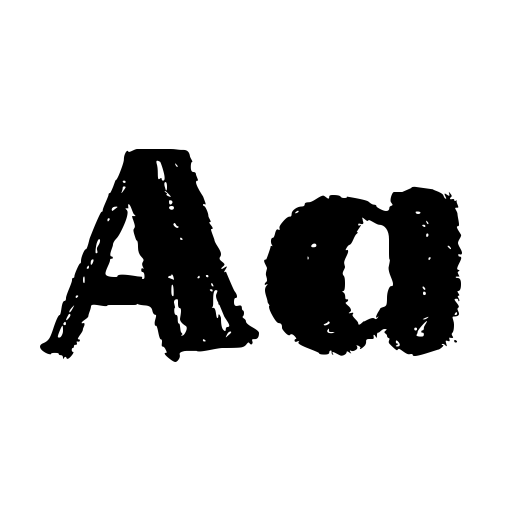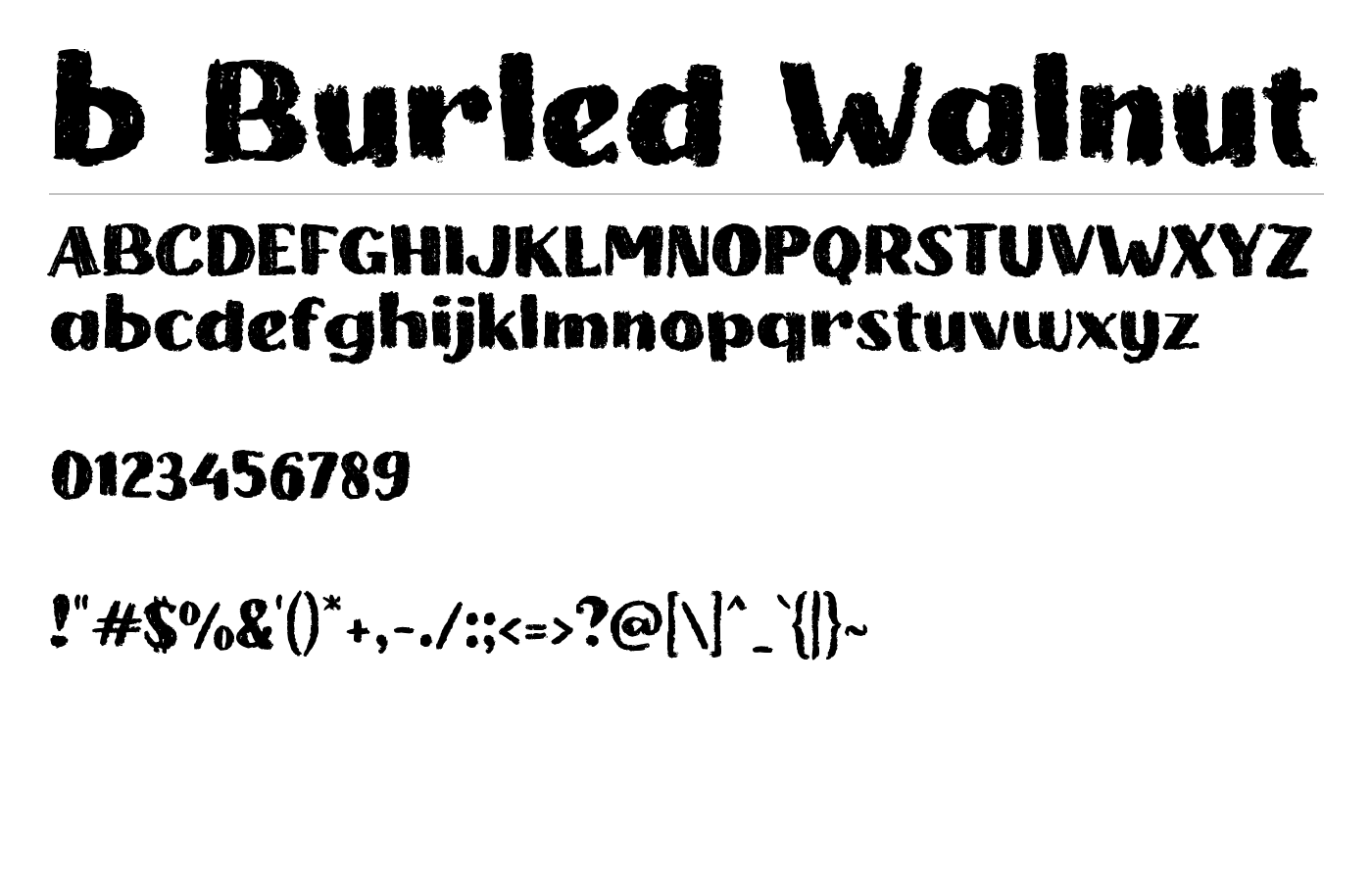
Burled Walnut is a bold, textured serif font with a rustic, hand-crafted feel that adds character and warmth to any design. Its rough edges and uneven stroke texture give it a natural, organic look, making it perfect for creative projects that want to evoke a handmade or vintage vibe. This font works well in logos, posters, and packaging where a strong, approachable, and expressive style is desired.
b Burled Walnut Font
About b Burled Walnut Font